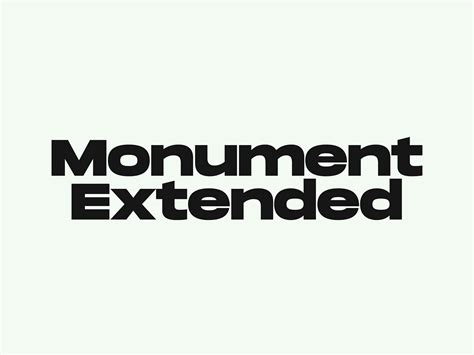
Web monument extended is a powerful quality extended typeface with great versatility. This extended font can be used. Web the high contrast between the vertical and horizontal strokes gives monument extended font an unmistakable look while providing legibility even at small sizes. Monument extended is a powerful quality extended typeface with great versatility. This extended font can be used. This extended font can be used for bold editorial statements, graphic. Web introducing monument font family! The full version of this font is for commercial use, buy it here. Monument extended is a powerful quality extended typeface with great versatility. Web introducing monument font family!
Web introducing monument font family! Web download monument extended font free. The full version of this font is for commercial use, buy it here. Web monument extended is a powerful quality extended typeface with great versatility. Web the high contrast between the vertical and horizontal strokes gives monument extended font an unmistakable look while providing legibility even at small sizes. Web introducing monument font family! Monument extended is a powerful quality extended typeface with great versatility. This extended font can be used. Monument extended is a powerful quality extended typeface with great versatility.